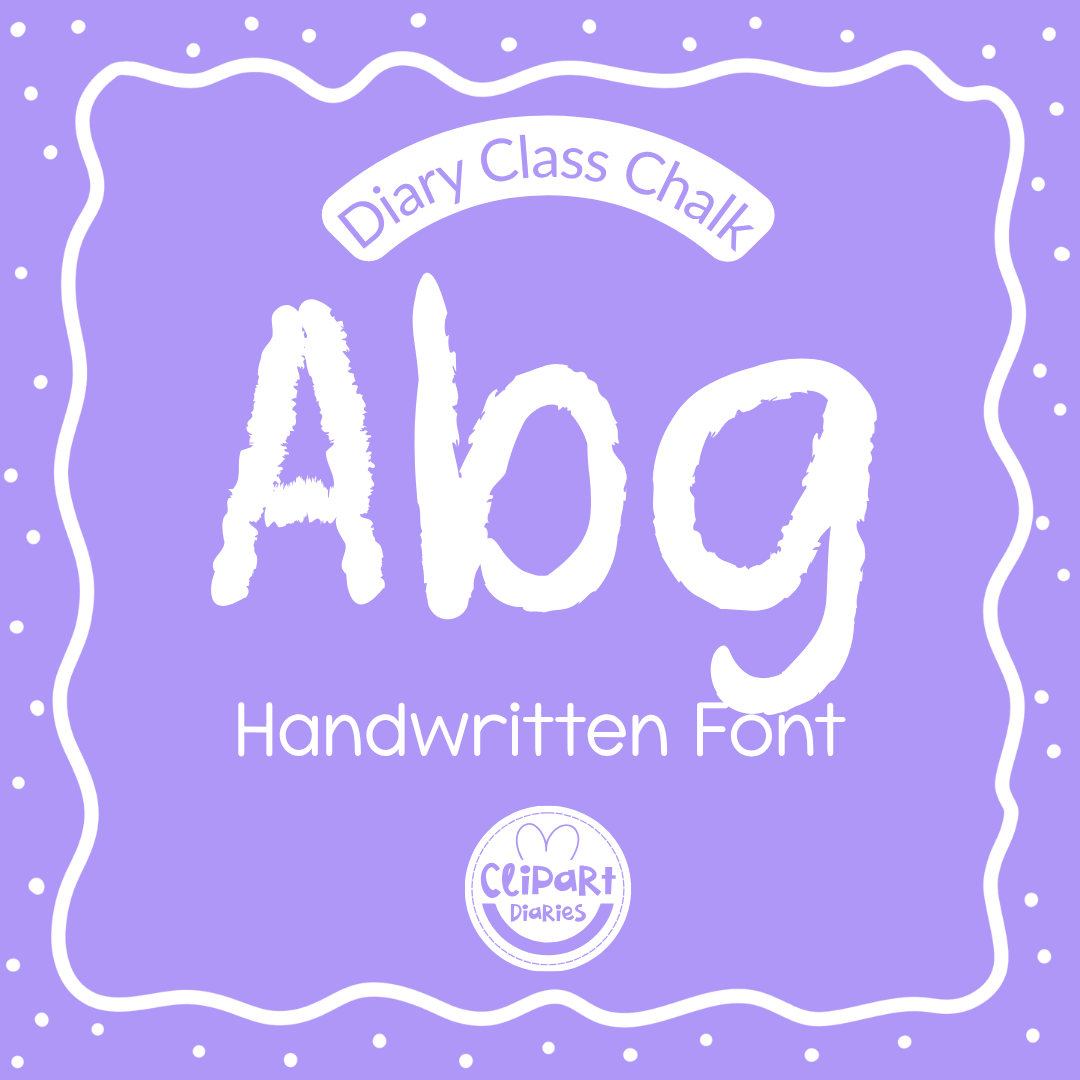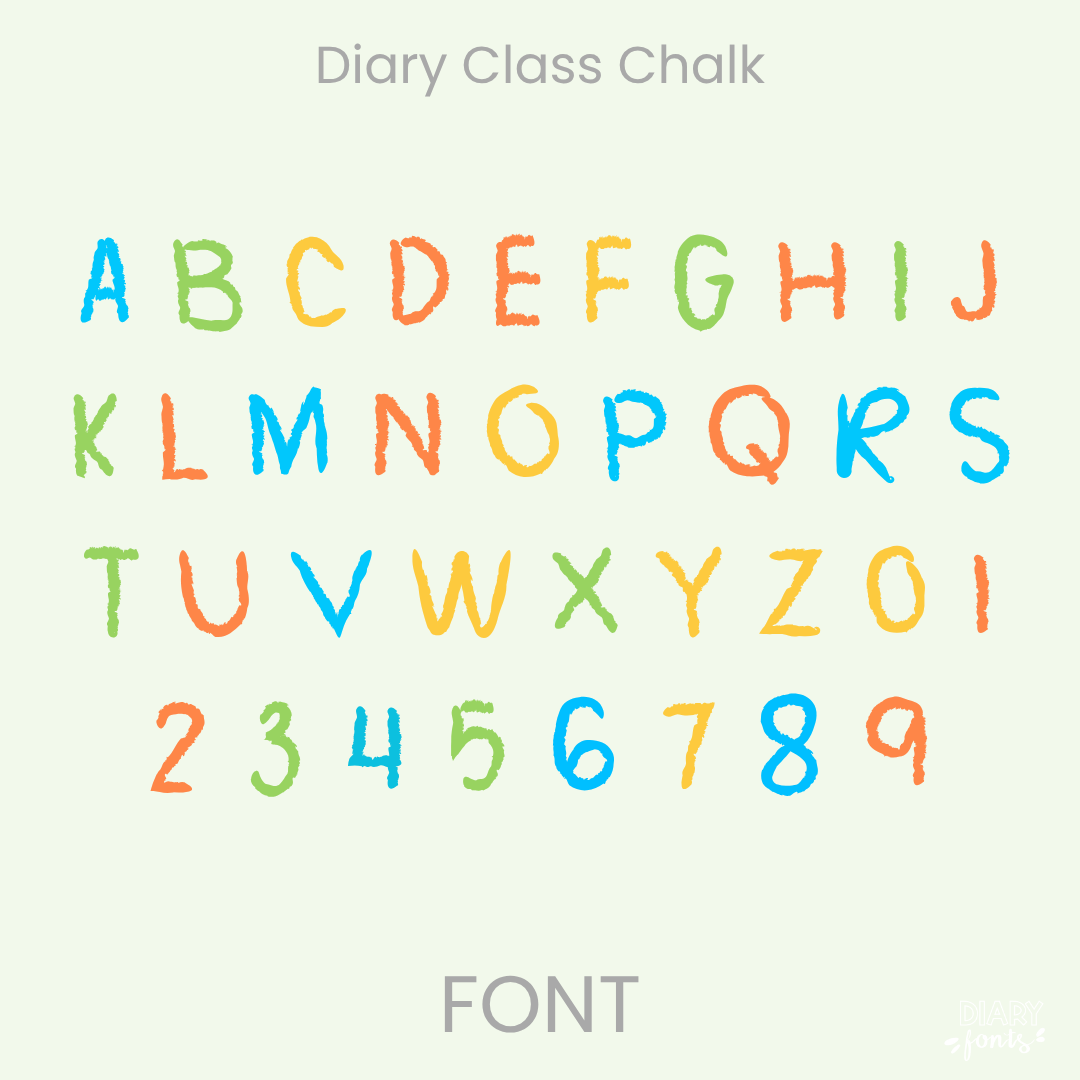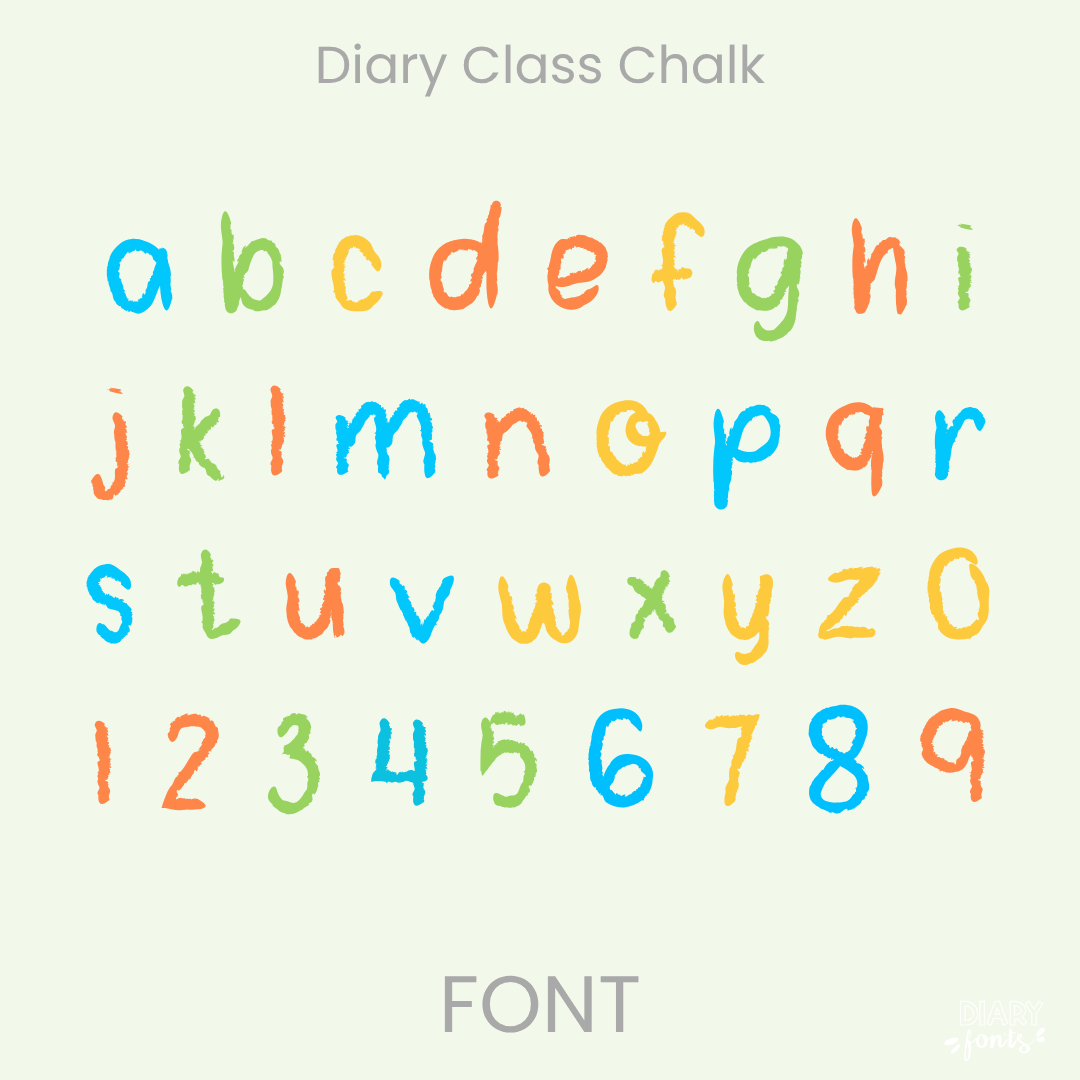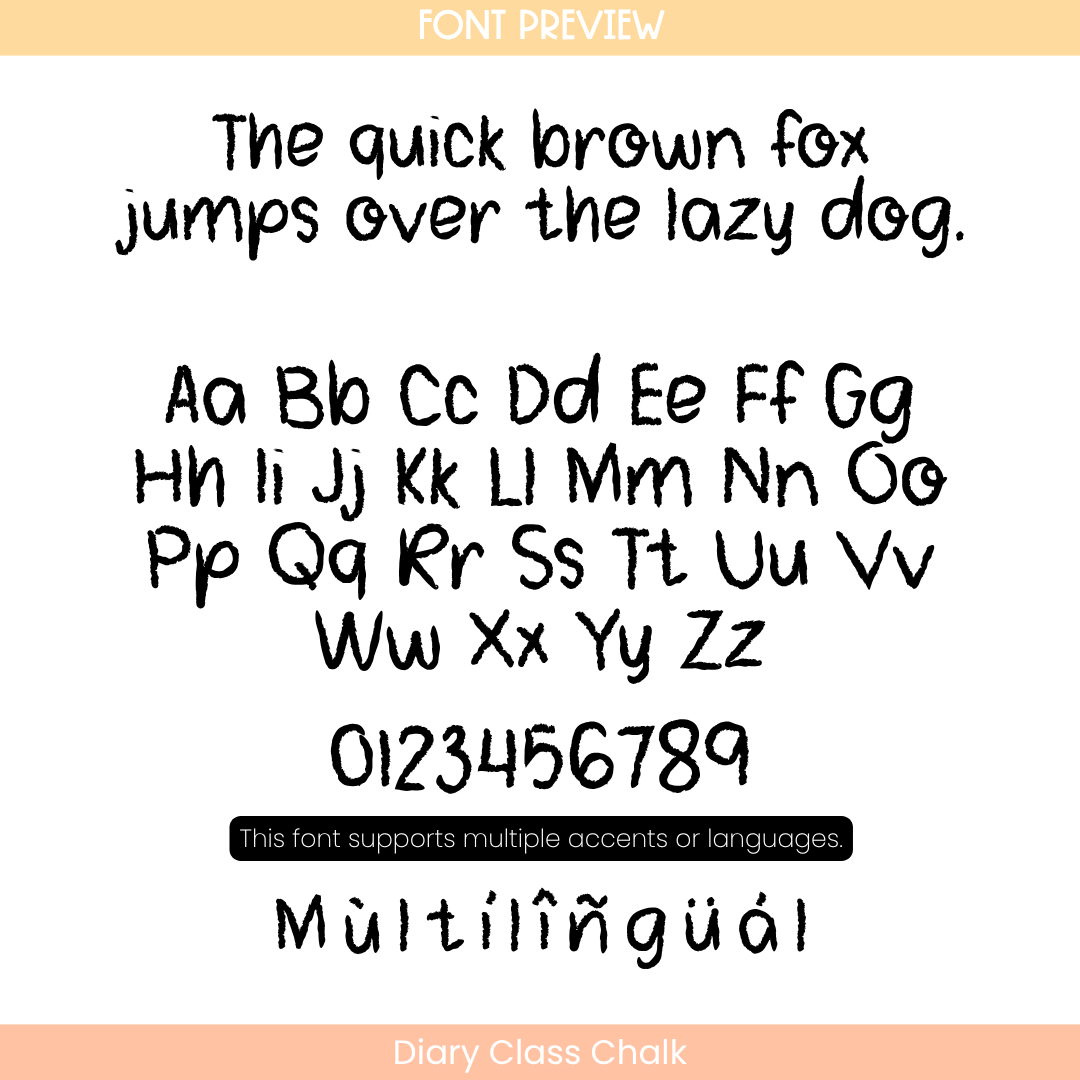
If you want to give your projects a cheerful and friendly look, Diary Class Chalk is an excellent choice. It features rustic, hand-drawn characters with a built-in chalk texture that mimics a cozy classroom board while remaining highly legible for students. This makes it a wonderful option for daily morning slide decks, eye-catching header fonts, and seasonal worksheets. The font includes a full set of uppercase and lowercase letters, numbers, and multiple accents to support different languages. It is ready for use in Canva, MS Office, and Adobe Apps, and it works perfectly with iPad apps like GoodNotes and Procreate. Whether for personal classroom use or commercial resources, this font adds a classic and approachable aesthetic to your work.